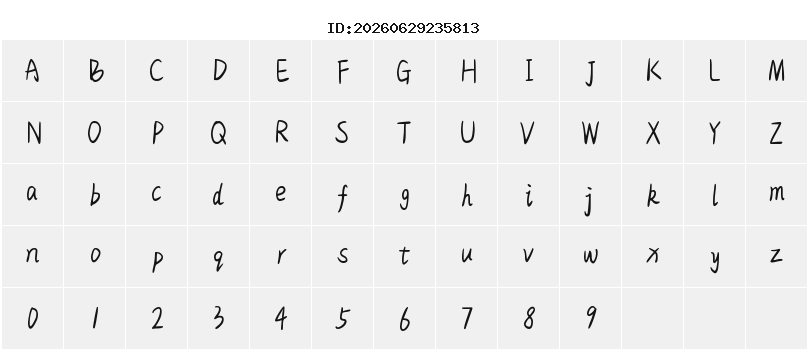
Aa情话只说给你听 (非商业使用) Preview
• Description: AaQinghuazhishuogeiniting (Non-Commercial Use) is a fantastic font with excellent features designed for user interfaces and electronic communications.
About Aa情话只说给你听 (非商业使用).ttf
Aa情话只说给你听 (非商业使用).ttf is a modern, elegant sans-serif font designed for ultimate readability and visual harmony. Perfect for branding, headlines, web design, and print materials.